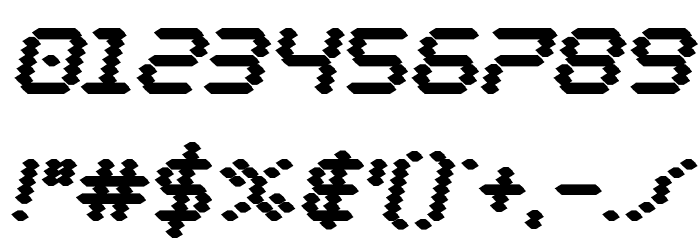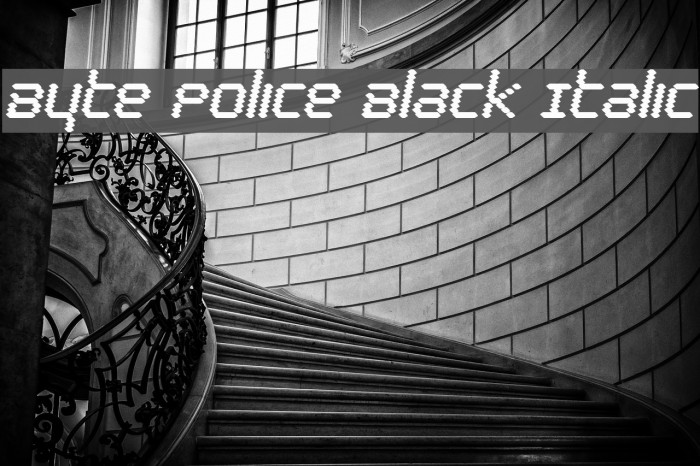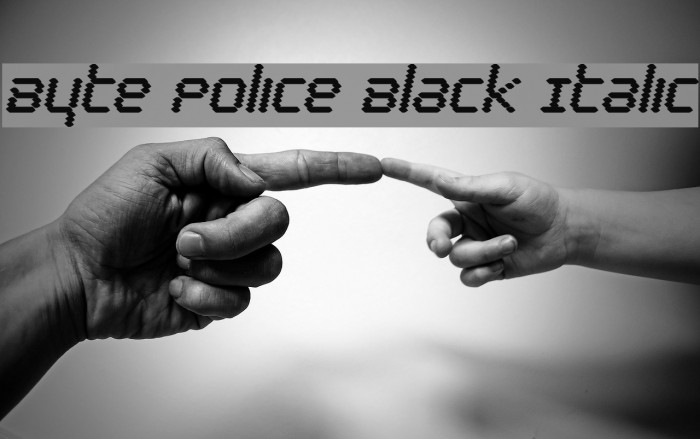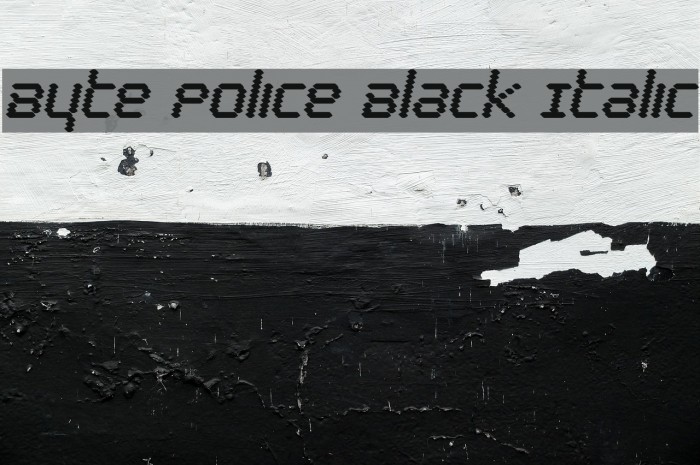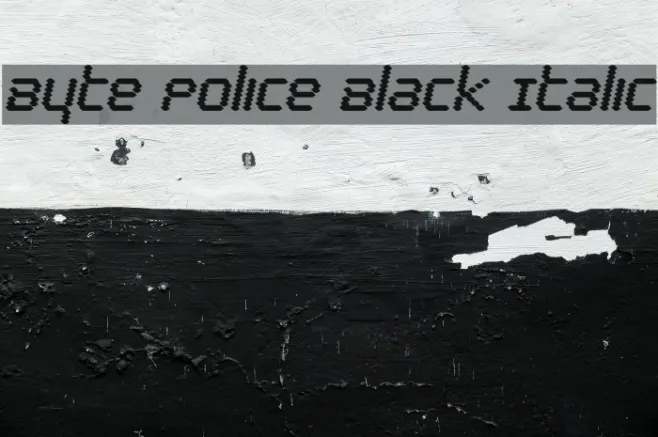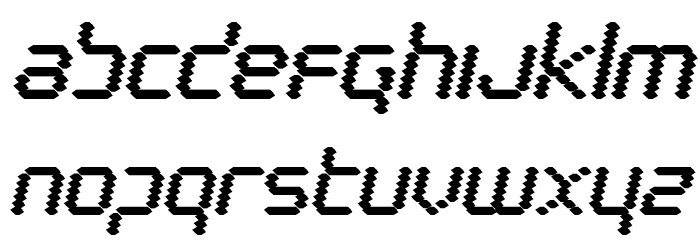
Byte Police Black Italic Font
Byte Police Black Italic Description
This font features a unique, pixelated design that mimics the appearance of digital or computer-generated text. Each character is composed of small, block-like segments that create a bold and striking visual effect. The italic style adds a dynamic and forward-leaning aspect, enhancing its modern and tech-inspired aesthetic. The font maintains consistent thickness throughout, providing a uniform look across all characters. Its geometric structure and sharp angles make it ideal for projects that require a futuristic or digital theme.
Proposed ProjectsIdeal for digital art, tech branding, video game design, and futuristic-themed posters.